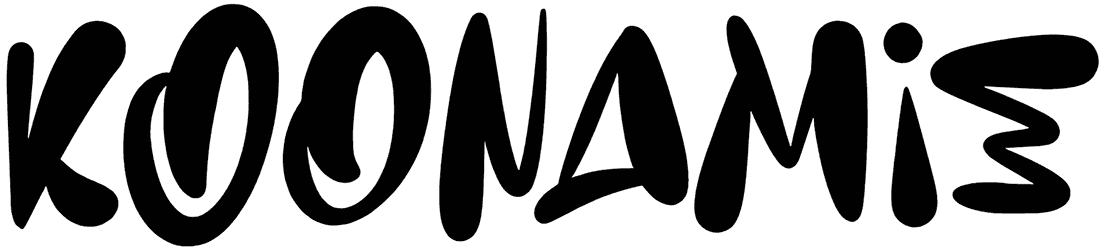
Koonamie Font
If you are struggling for increasing the level of engagement of your artwork, a lovely script font such as Koonamie would be a good solution and lets you add a vibe of playfulness, momentum, drama, or sincerity to your graphic content including animation posters, logos, headlines, product labels, or blog posts.
This all-caps font provides two distinctive styles, so you will have a good opportunity to bring good diversity to your work.